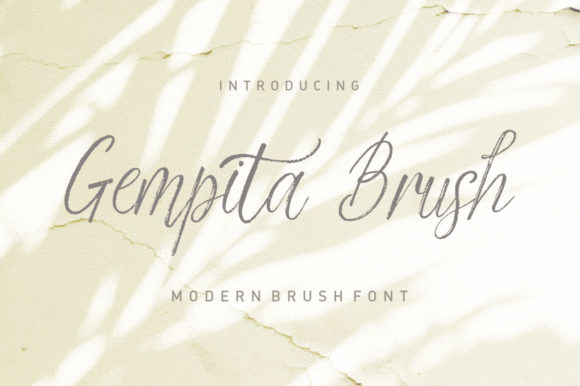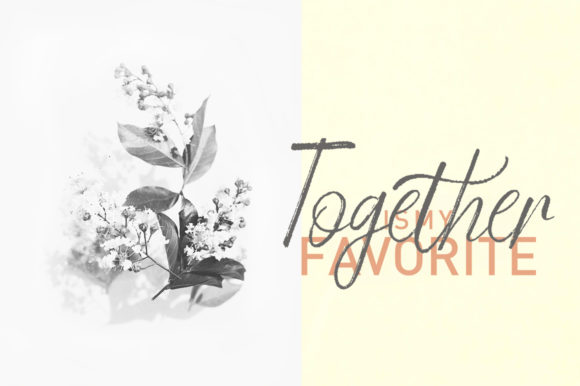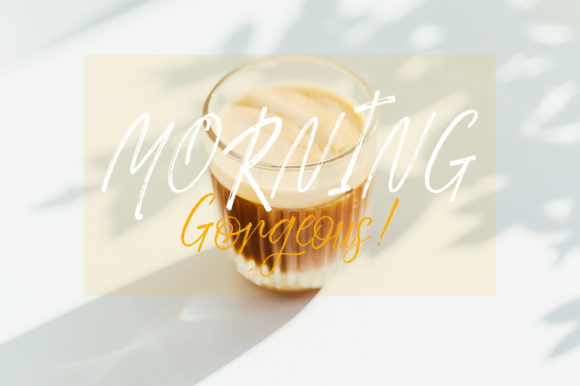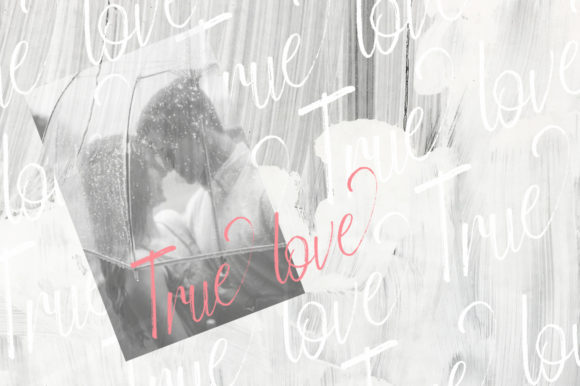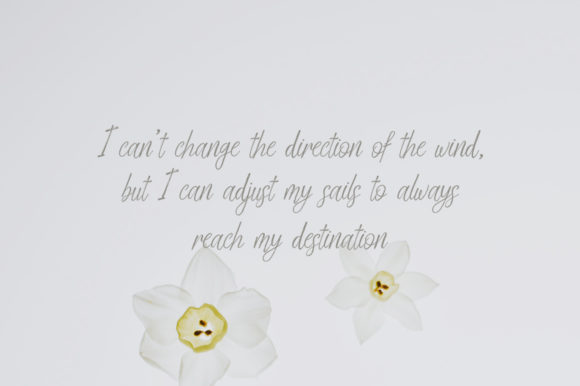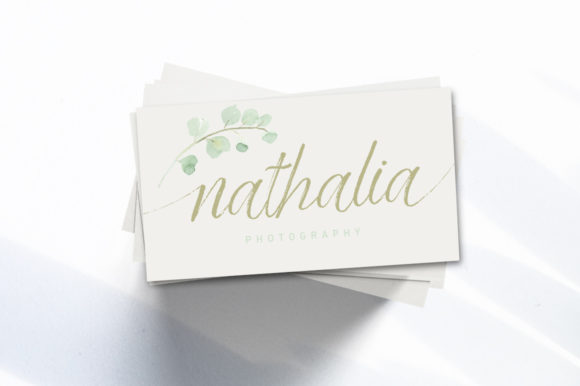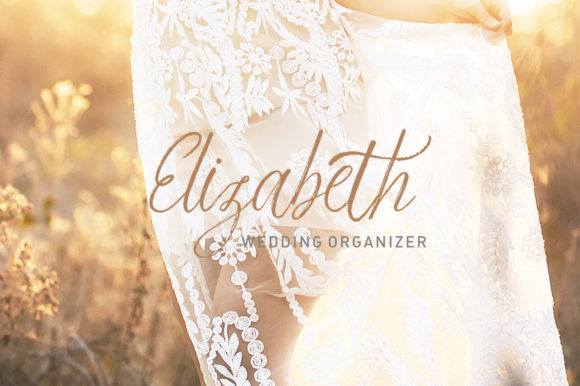
Gempita Brush Font
About Gempita Brush Font
Gempita Brush is a light and cool handwritten font with a smart feel. It will turn any design idea into a true standout!